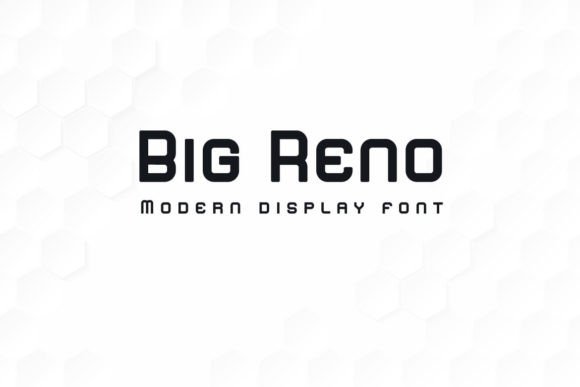
Presenting Big Reno Font, the display font boasts a bold and audacious character, leaving an indelible mark wherever it's employed. Step into a world of vivid typography where designs come alive, captivating attention with its distinctive presence.
This remarkable font family, crafted by Mightyfire, is a tour-de-force in design, pushing the boundaries of creativity and inviting you to embark on a typographic adventure. Each letterform radiates with originality, embodying a unique style that commands attention and demands admiration.
Unleash your imagination and explore the limitless possibilities of Big Reno. Its versatile nature makes it a perfect fit for a diverse range of projects, from branding and logos that exude charisma, to candy and food packages that ignite a sweet sensation. With Big Reno, your designs transcend the ordinary, becoming extraordinary expressions of visual artistry.
With Big Reno, you're not just downloading a font; you're acquiring a powerful design tool that empowers you to make a statement. Let your creativity shine as you harness the energy of this captivating font to craft designs that leave a lasting impression.
With its striking personality and undeniable charm, Big Reno is more than just a font; it's a statement of style, a symbol of originality, and a key to unlocking your creative potential. Elevate your designs to new heights and embrace the transformative power of Big Reno.